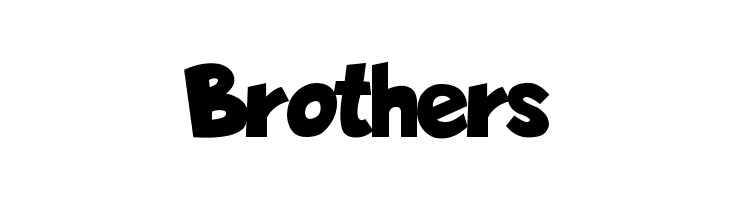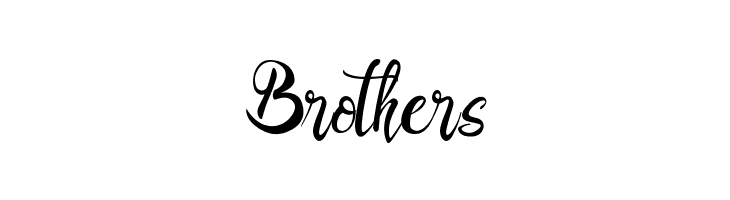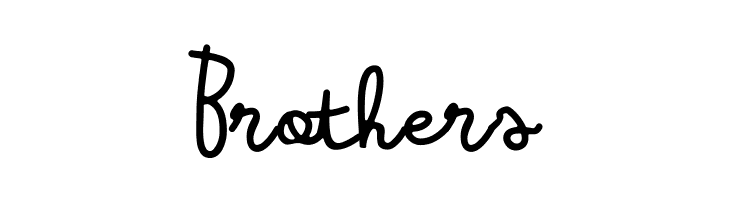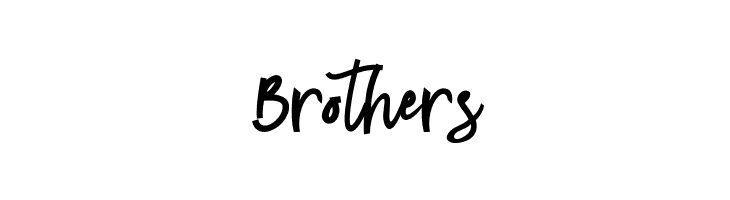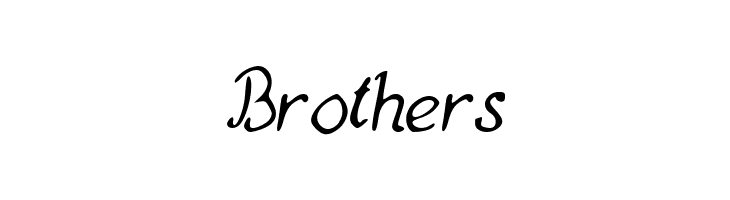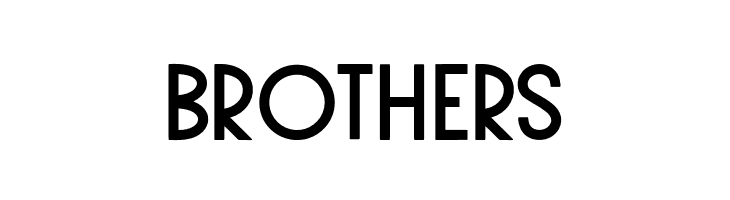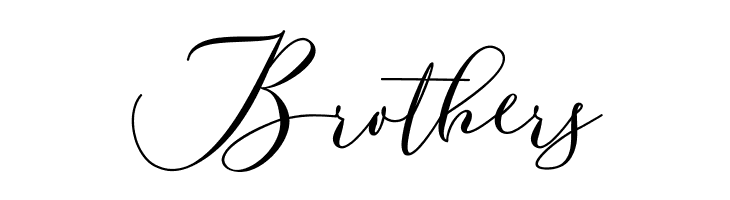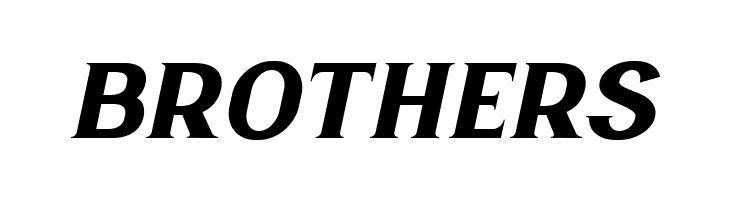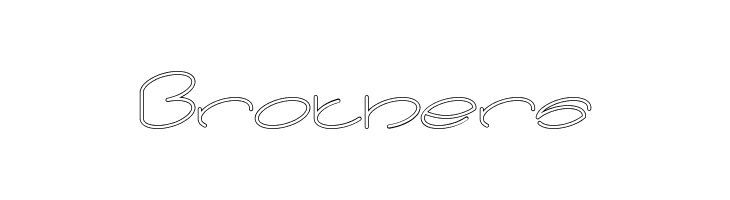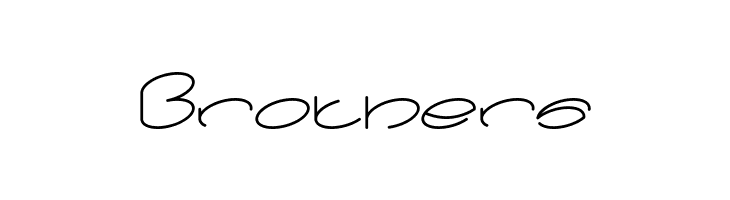
• Herne Bold
A bold, geometric font with strong, angular strokes and high contrast.
• Herne Bold Italic
A bold, italicized font with a strong, dynamic presence.
• Herne Capitals Regular
Bold, uppercase serif letters in decorative square borders.
• Herne Italic
A bold, italic font with a dynamic and modern style.
• Herne Regular
A bold, serif font with strong, angular serifs and a modern yet classic style.
• HEROLD
A bold, brush-style font with dynamic, energetic strokes.
• Hesterica
A lively and dynamic handwritten script font with fluid, cursive letterforms.
• HEX Appmia Regular
A modern, minimalist font with clean, geometric lines and balanced characters.
• Hey Gorgeous
A playful, rounded font with bold strokes and a friendly vibe.
• HiddenSigns
A decorative font with glyph-like symbols resembling ancient hieroglyphs.
• HiddenSignsRings
Decorative pictographic font with ancient, glyph-like symbols in bold circles.
• Higgledy Pigs
• Higgledy Pigs Big
A playful, handwritten font with dynamic, slanted characters.
• High Five Jive NF
A bold, geometric font with a 3D shadow effect, ideal for impactful designs.
• High Five NF
A bold, geometric font with Art Deco influences and unique cutout designs.
• HighFiveJiveNF
A bold, geometric font with a 3D shadow effect, perfect for eye-catching designs.
• HighFiveNF
A bold, geometric font with high contrast and modern, abstract shapes.
• Highland Perk
A playful, handwritten font with dynamic strokes and an informal style.
• HIGHSTORIES Demo
A tall, narrow, and geometric font with a modern aesthetic.
• Hightide
A dynamic and elegant script font with flowing, cursive letterforms.
• Highwind
A tall, narrow serif font with high contrast and sharp serifs.